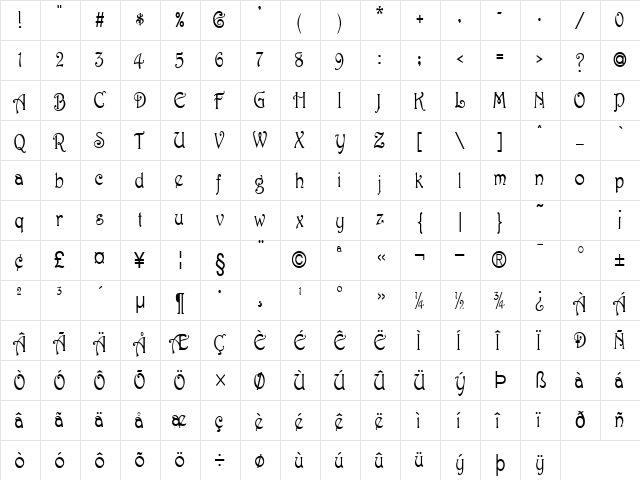
Parisian-Condensed Normal
Design Context for Parisian-Condensed Typeface
Parisian-Condensed takes a measured approach to typography — its balanced proportions and neutral character make it a reliable workhorse for both digital and print work. Its narrow stance lets it pack a punch even in space-constrained designs.